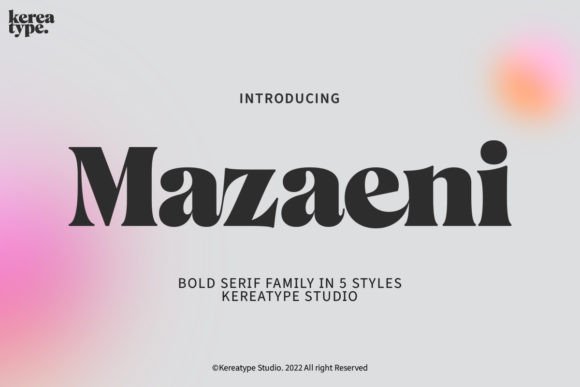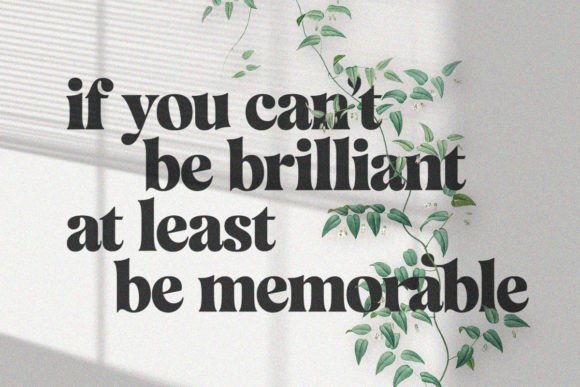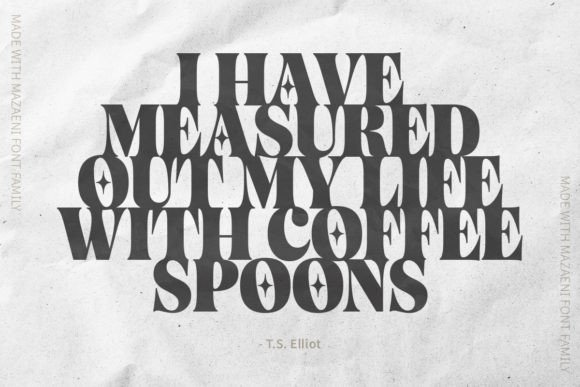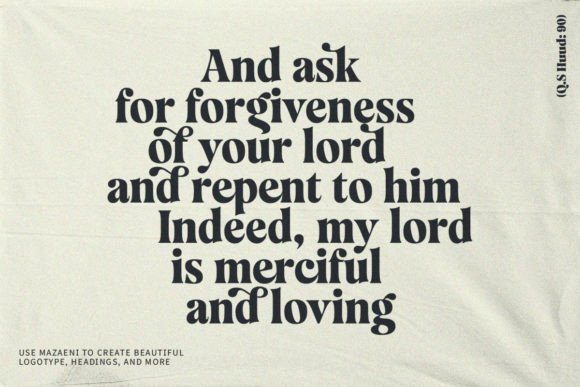
Mazaeni Font: A Bold Serif Display Typeface for Modern Branding
About the Mazaeni Font
Meet Mazaeni Font, a stunning font that brings a touch of elegance and professionalism to any design. Mazaeni is a daring and sophisticated display typeface perfect for logotypes, posters, and editorial use. Masterfully designed to become a true favorite, this font has the potential to bring each of your creative ideas to the highest level!
Mazaeni’s strong, geometric forms make it ideal for headlines, logos, and short impactful statements on posters or packaging. Its sophisticated boldness lends itself well to brands aiming for a modern and authoritative feel. However, its condensed letterforms and high contrast make it unsuitable for extended body text or UI elements requiring high readability.
Consider pairing Mazaeni with a clean sans-serif like Open Sans for body copy to maintain visual hierarchy, or a delicate script font such as Great Vibes for a touch of elegance in supporting text. For a bolder contrast, a geometric sans-serif like Futura would create a powerful, modern pairing.
The overall personality of Mazaeni is bold and confident, yet refined. It projects a sense of modern luxury and is best suited for projects that require a strong visual impact and a sophisticated aesthetic.
Mazaeni Font Usage Examples
Mazaeni Font Example